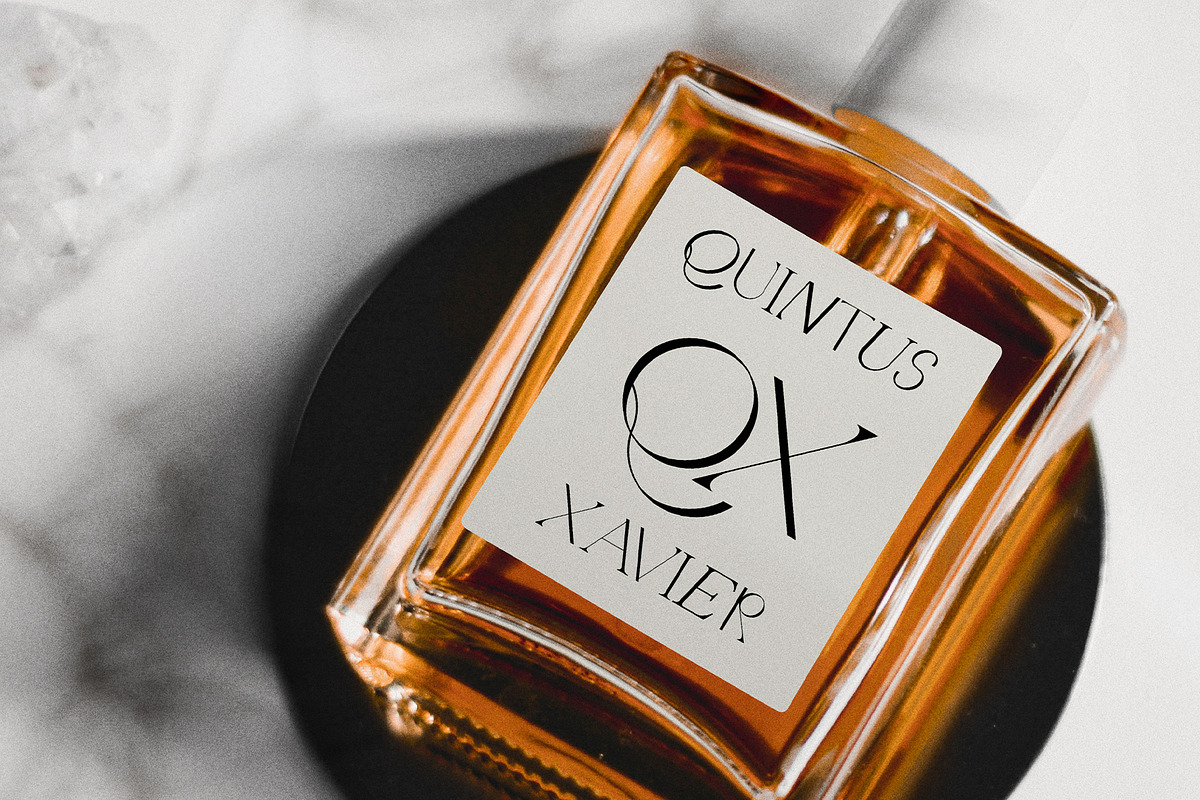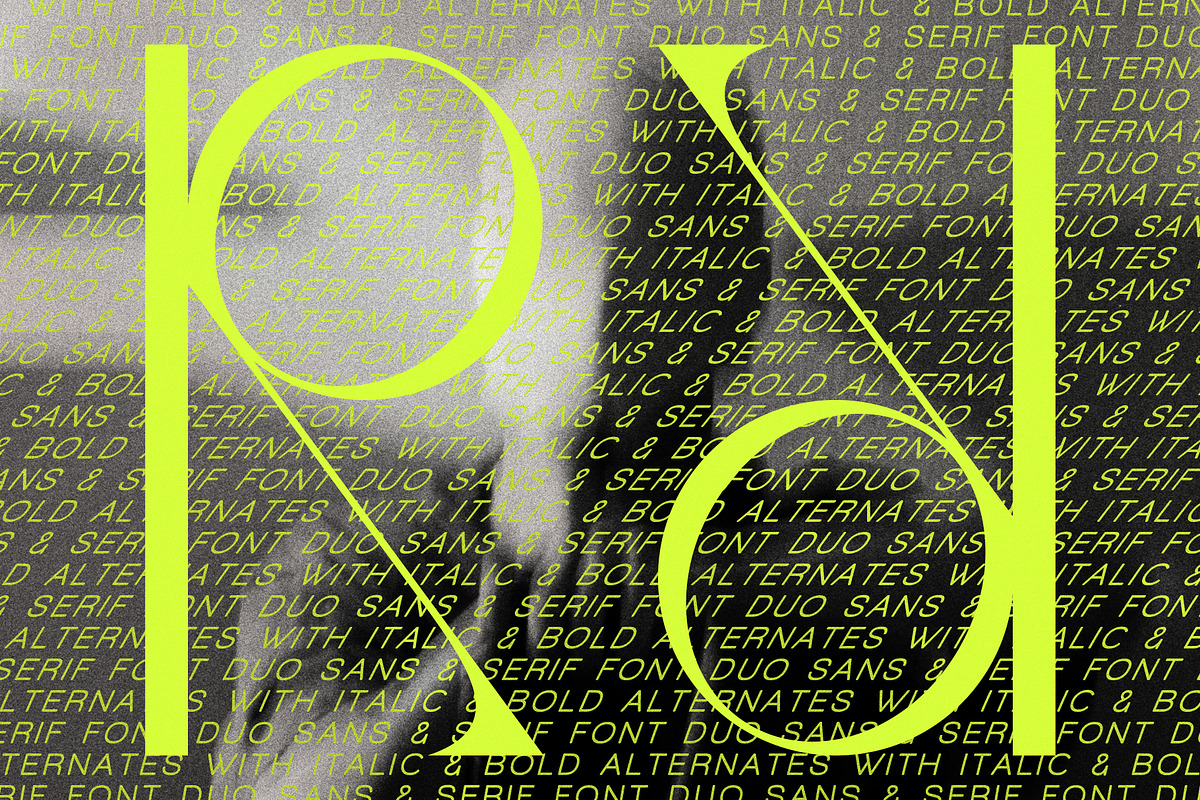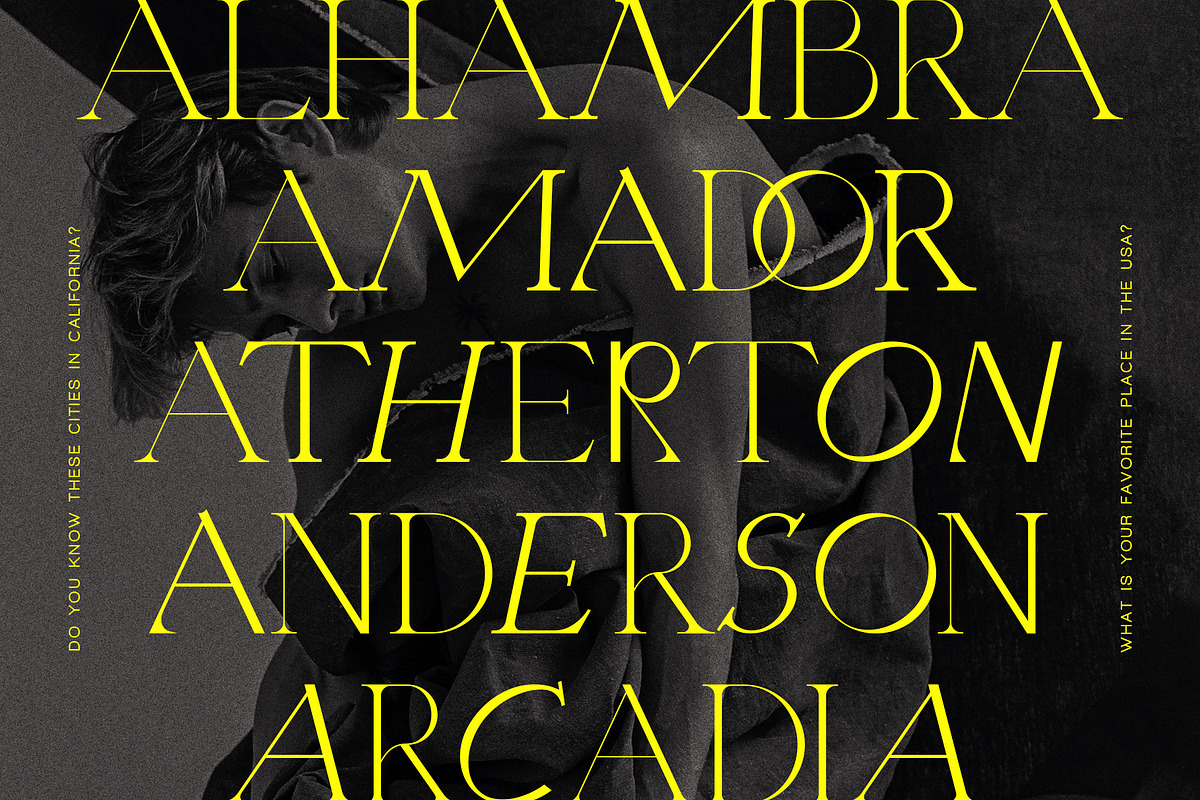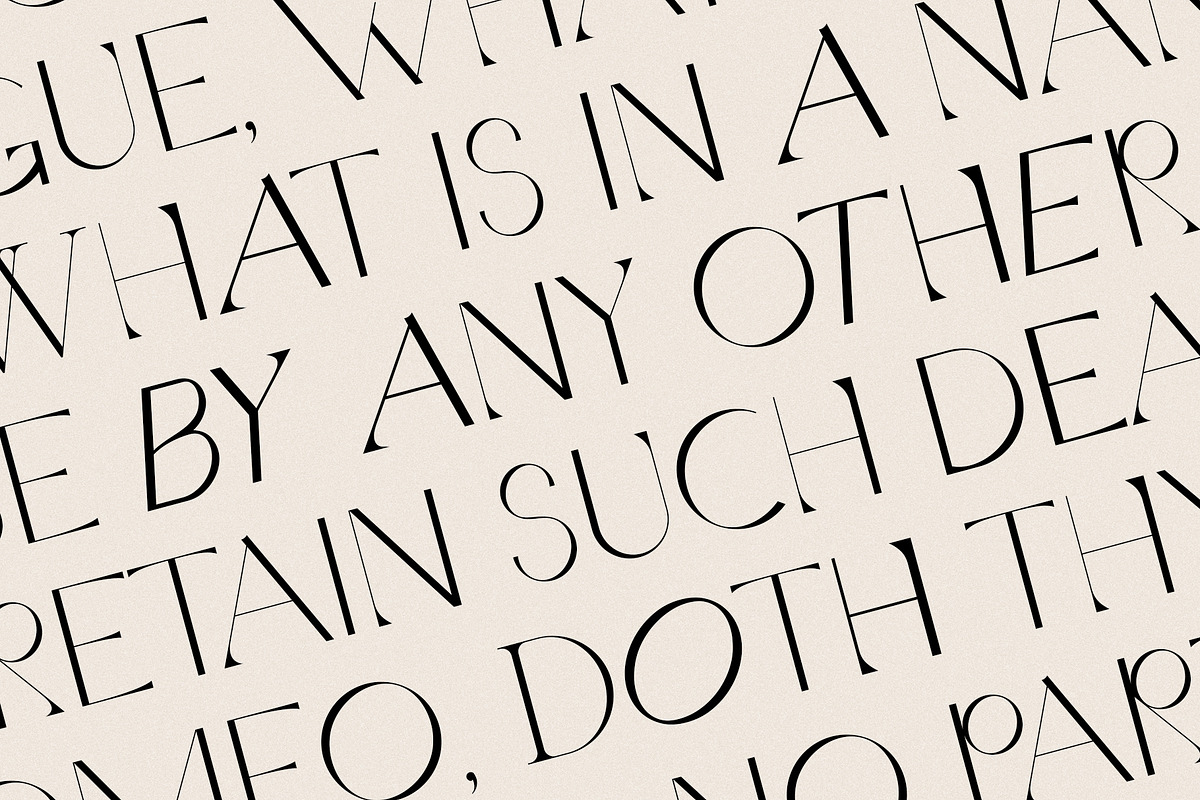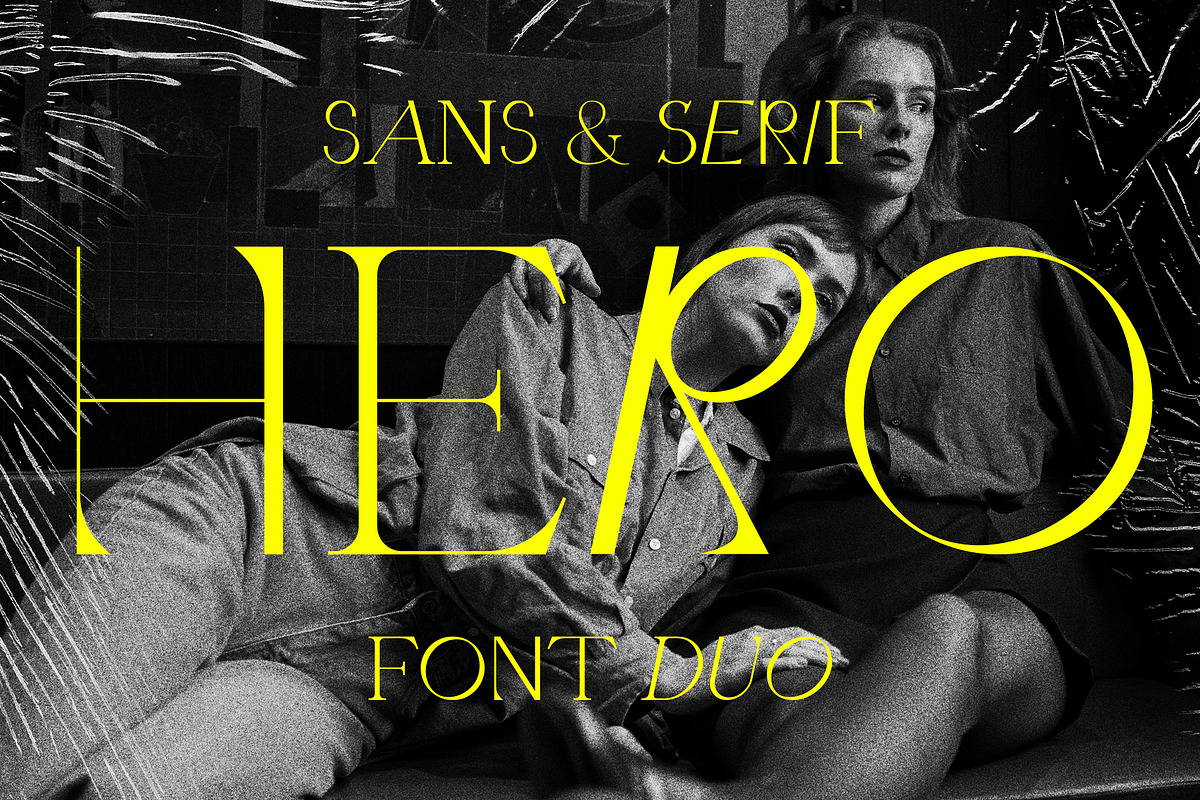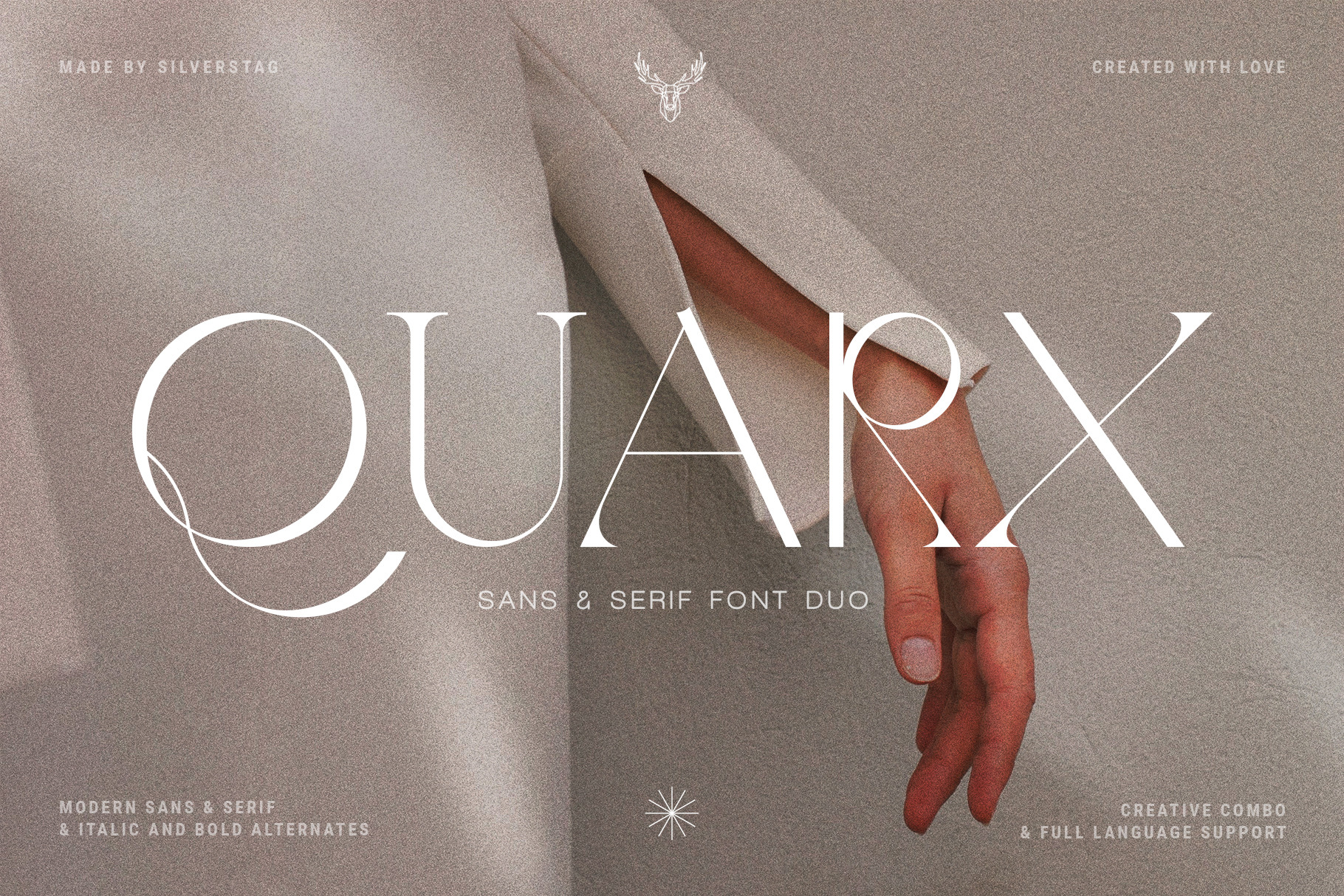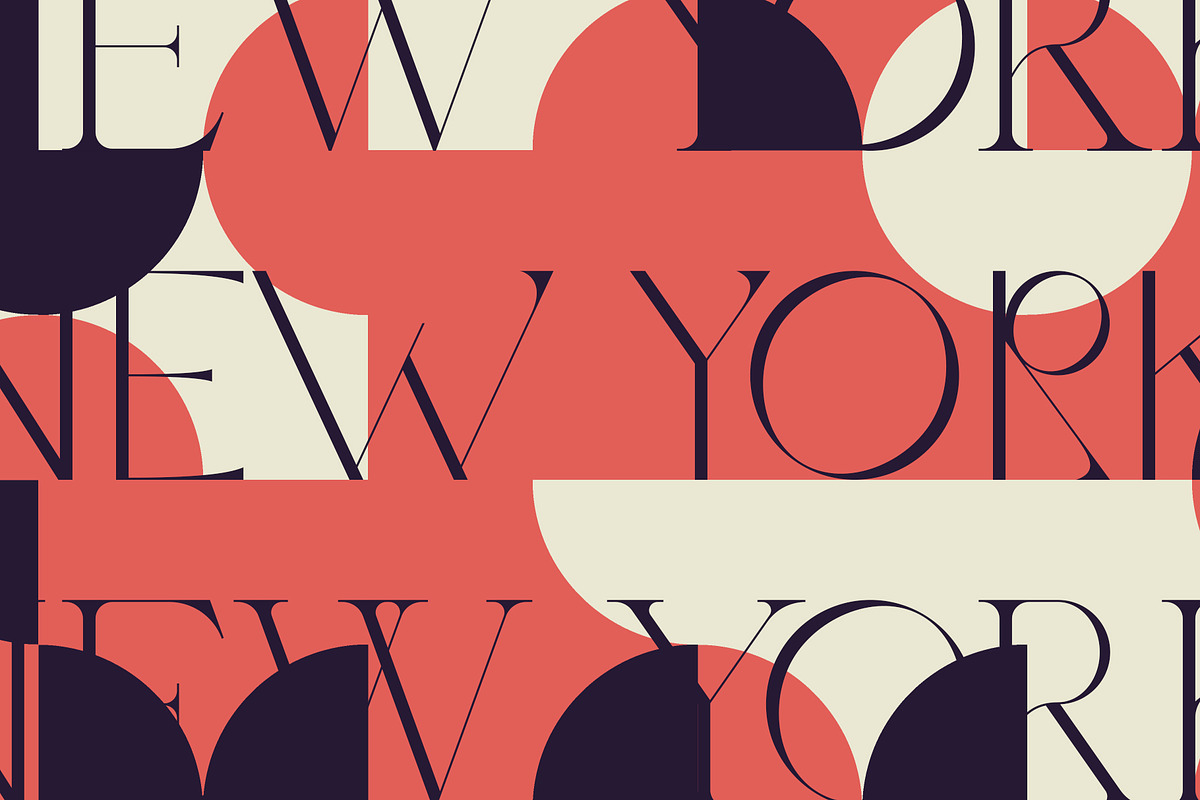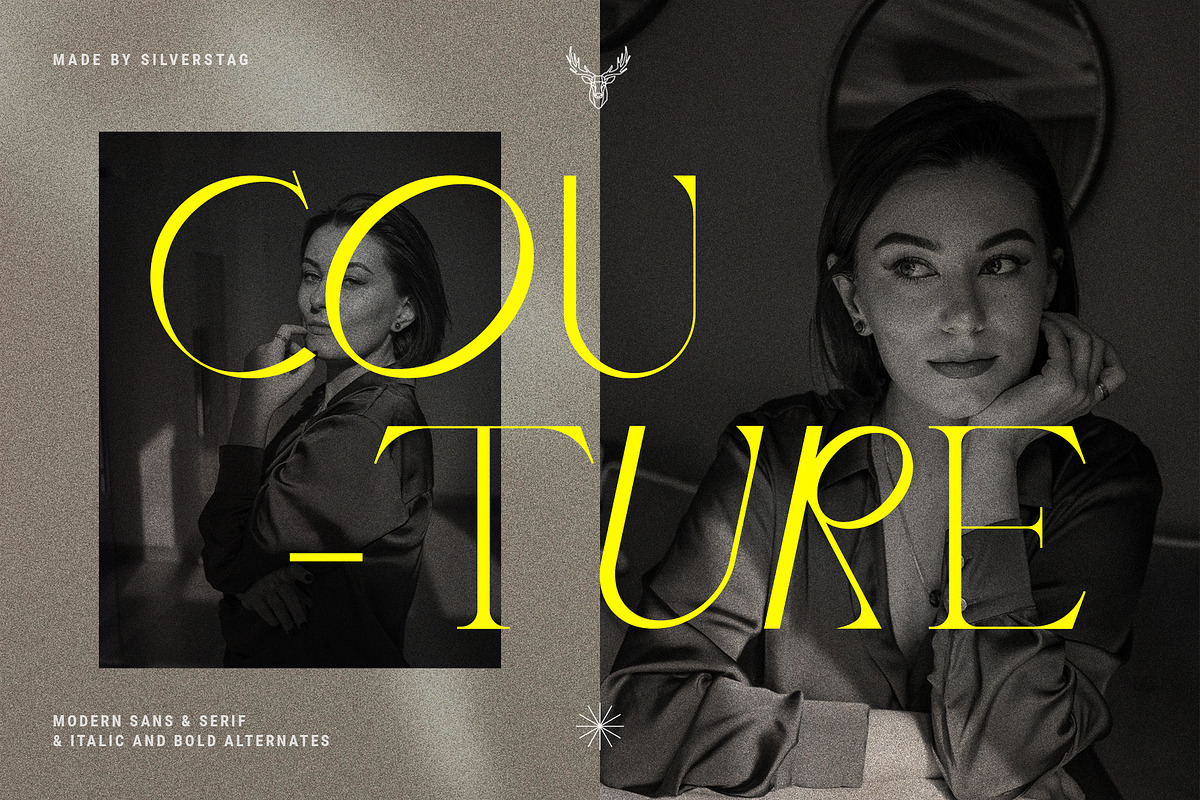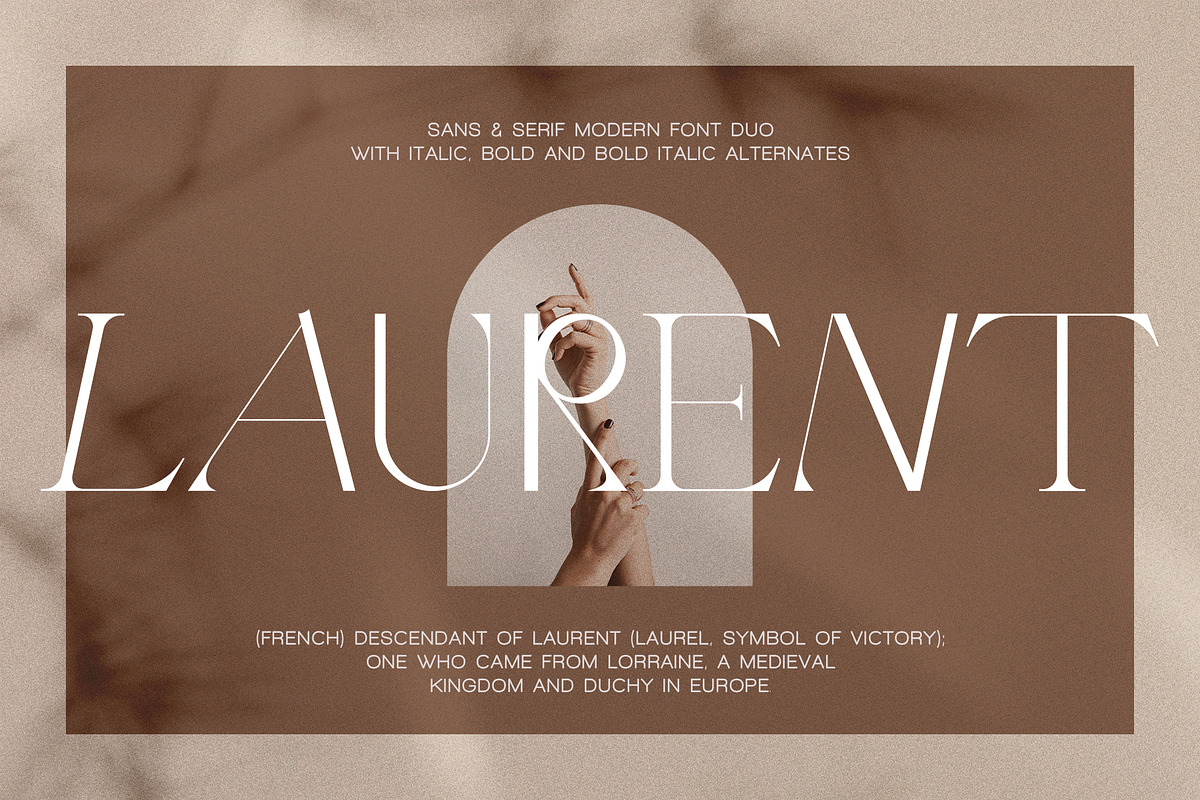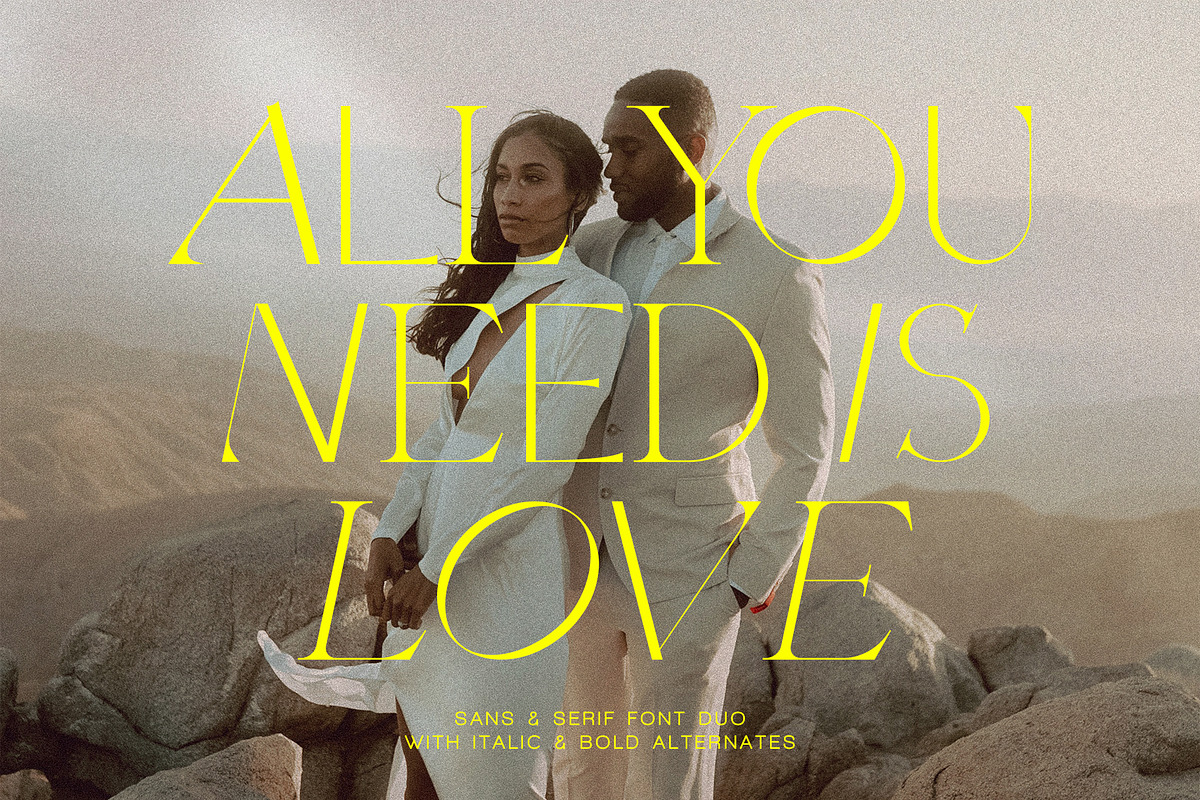
Quarx - Sans & Serif Modern Font Duo
Is it a serif or is it a sans? It's actually both! But, yes there is a but, it's not 2 in 1, but actually 8 in 1! Quarx is my new sans & serif font duo that includes regular, italic, bold and bold italic options all in one typeface and it looks gorgeous! Don't trust me? Check out the check out the slides above and see them all for yourself.
If you want to use serif just type uppercase letters! Sans, you say? Just go with lowercase letters! And the other options? How do I use bold letters? Italic, bold and bold italic letters are available as alternates, so you will get a whole font family in one font!
It also includes full language support, punctuation, numerals and detailed instructions how to use alternate letters most of the apps on your computer, as well as in Canva.
I invite you to check out the preview images, and I hope you will be immersed in my vision for this creative typeface that, I am sure, will work for all kinds of interesting projects you might be working on this year.